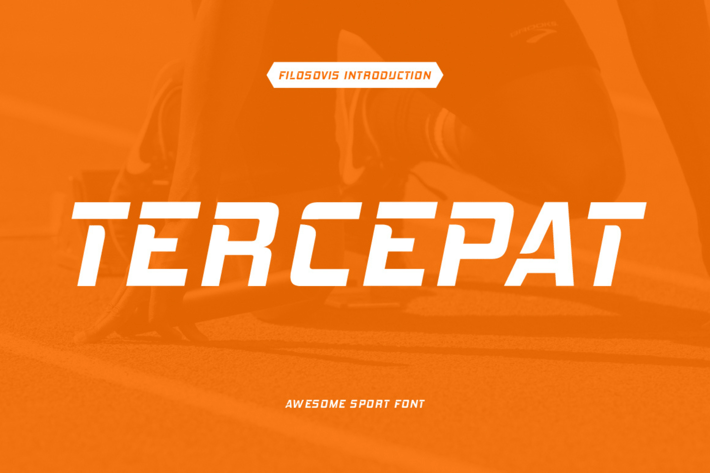
Tercepat | Awesome Sport Font
Description
For your creative project, use the Tercepat-themed Awesome Sport Font. Awesome Sport Font is appropriate for every kind of design you produce, including greeting cards, posters, logos, and branding.